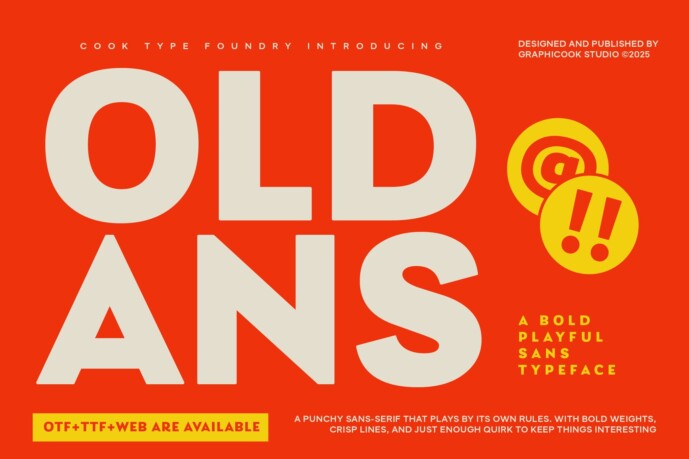
Oldans Font
Designer: graphicook
Oldans is a sans-serif font featuring unique letterforms that are both easy to read and visually striking. Its versatility makes it suitable for a wide range of design styles.
Oldans is perfect for headlines, logotypes, magazines, packaging, quotes, movies, games, cover albums, book covers, and flyers, it’s a perfect solution for creating eye-catching designs that stand out in any context.